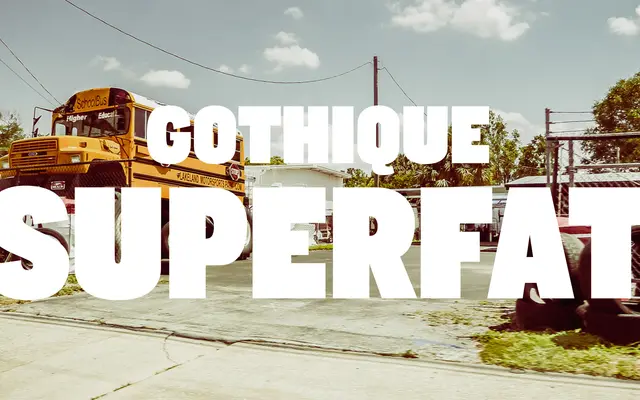
CA Gothique
Cape Arcona · Stefan Claudius
A single ultra-heavy display grotesque sitting between American Gothic and European Grotesque traditions, with small caps, four number formats and Central European character support.
CA Gothique is a Superfat-weight display sans by Stefan Claudius, designed to occupy a midpoint between American wood-type gothics and European grotesques. Despite offering only one weight, it punches well above its station through typographic utility: small caps, small caps numerals, four number formats and a Central European character set across 612 glyphs make it usable beyond pure headline work. The foundry classifies it as Display Sans Serif, and its single style keeps the proposition simple and deliberate.
Classified by the foundry as Display Sans Serif; positioned aesthetically between American Gothics and European Grotesques, with a single ultra-heavy weight intended for headline use.